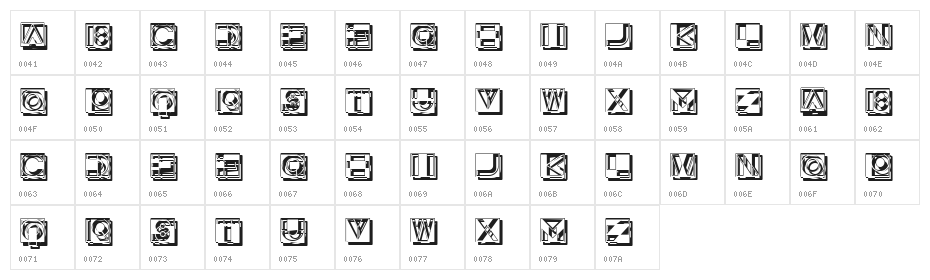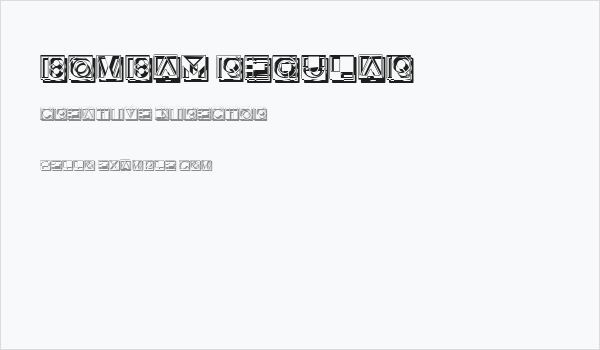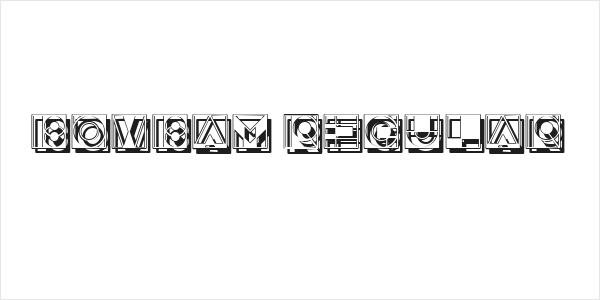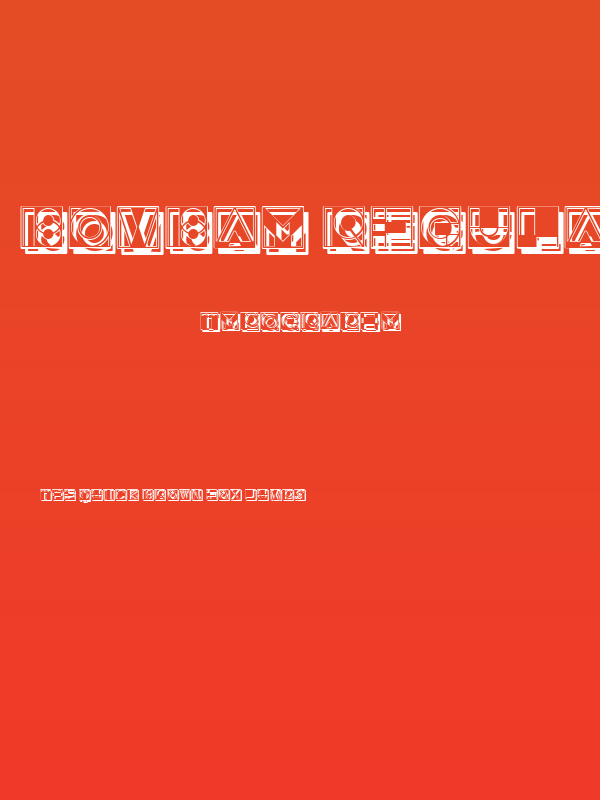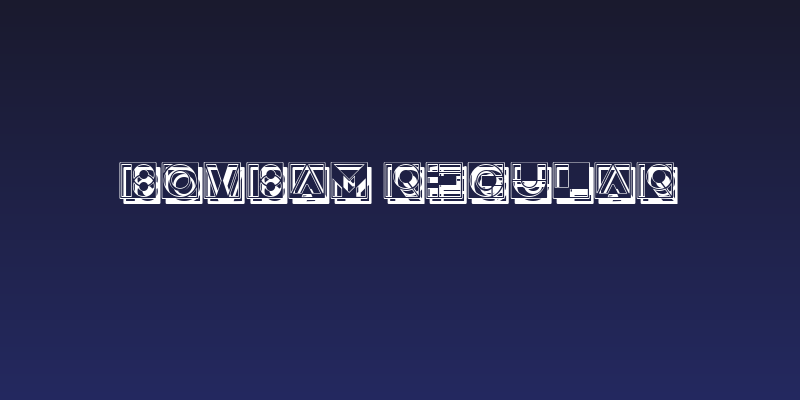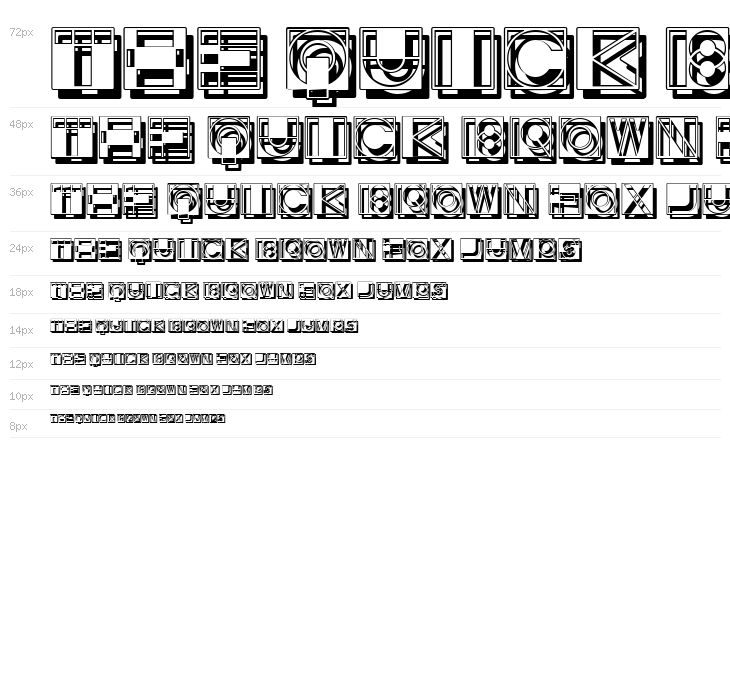
Bombay Regular Font
Bombay Regular Description
This font features a highly decorative and intricate design, characterized by geometric patterns and bold outlines. Each character is enclosed within a square, creating a unique and eye-catching appearance. The design incorporates various shapes and lines, giving it a modern and artistic flair. The font is visually striking, making it suitable for projects that require a strong visual impact. Its complex design may not be suitable for body text but excels in creative and artistic applications.
| Proposed Projects | Ideal for posters, album covers, branding, and artistic projects that require a bold statement. |